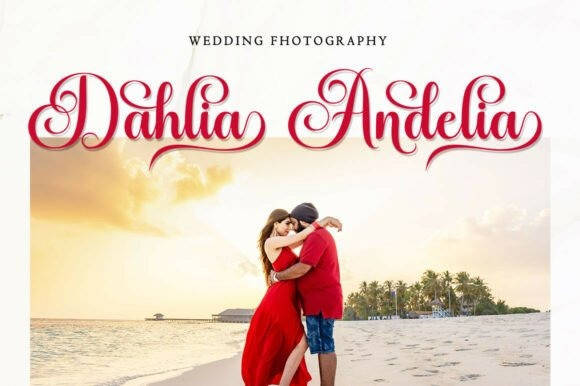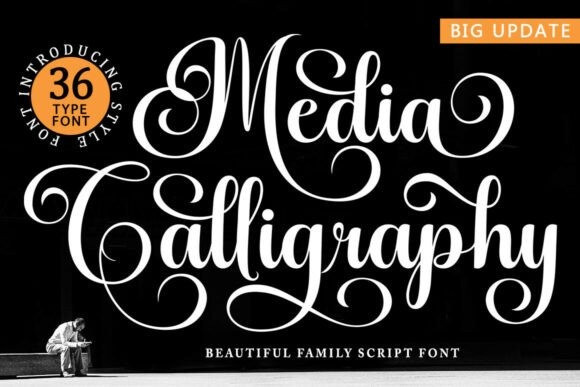
Media Calligraphy Font
Media Calligraphy Family Font is a modern script typeface that blends timeless elegance with a refined contemporary feel. Characterized by its sleek, clean lines and graceful letterforms, this font exudes femininity, sensuality, and glamour while maintaining exceptional readability. Its flowing connections between letters add a sophisticated charm, making it ideal for both personal and professional design.
Media Calligraphy includes a variety of stylistic alternates, offering creative flexibility and a touch of individuality for each project. This classic yet versatile font is perfect for formal applications such as wedding invitations, product packaging, fashion branding, restaurant menus, makeup and beauty design, stationery, novels, magazines, greeting cards, logos, and more.